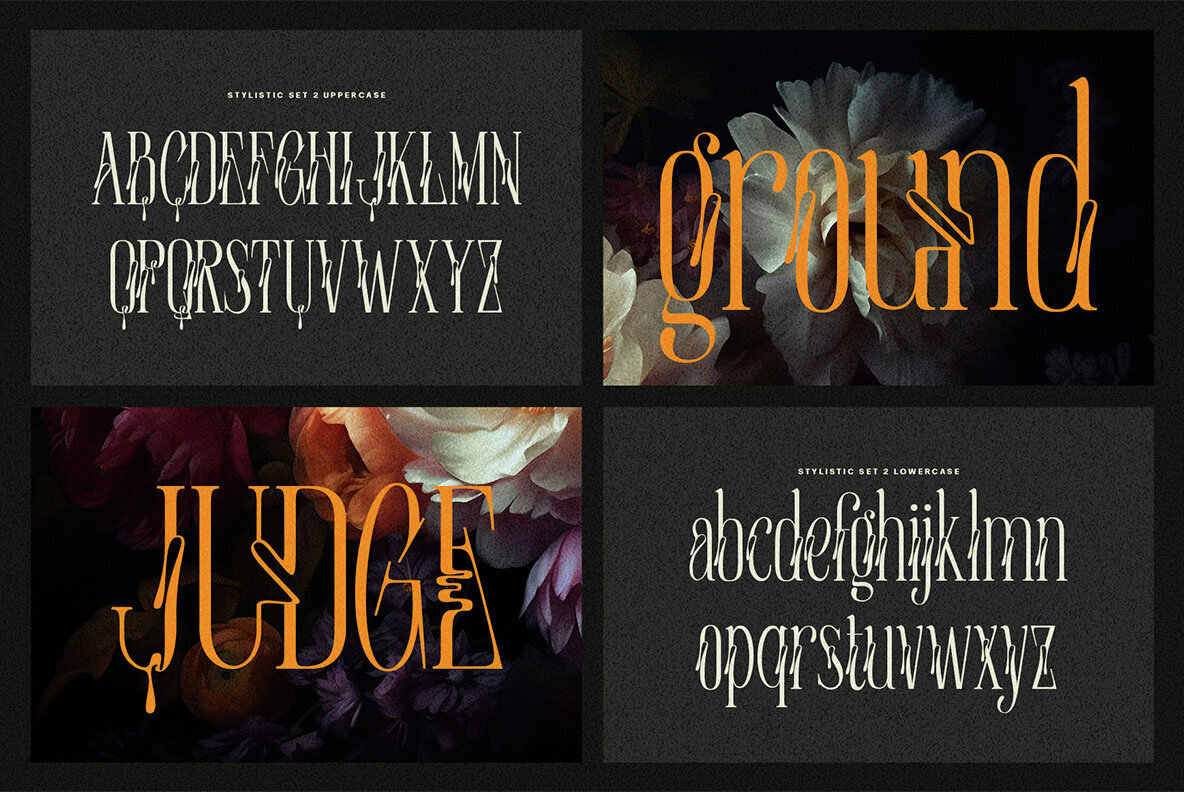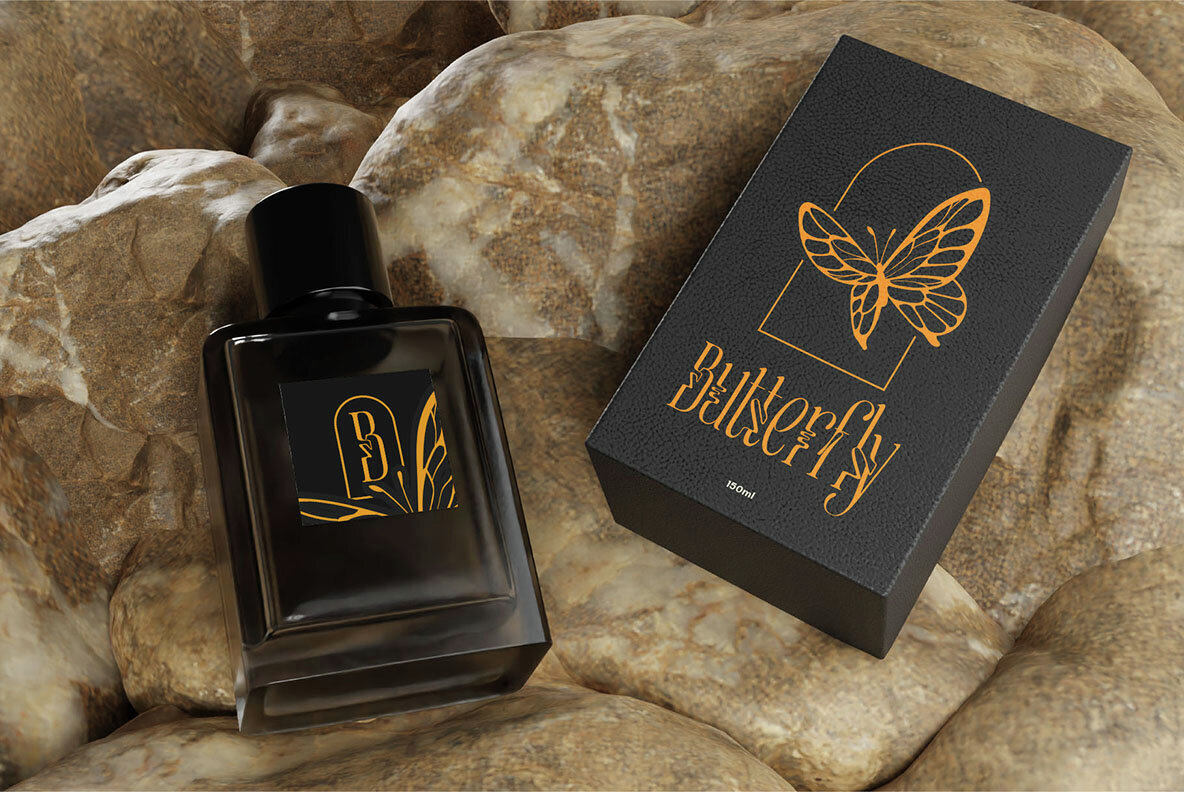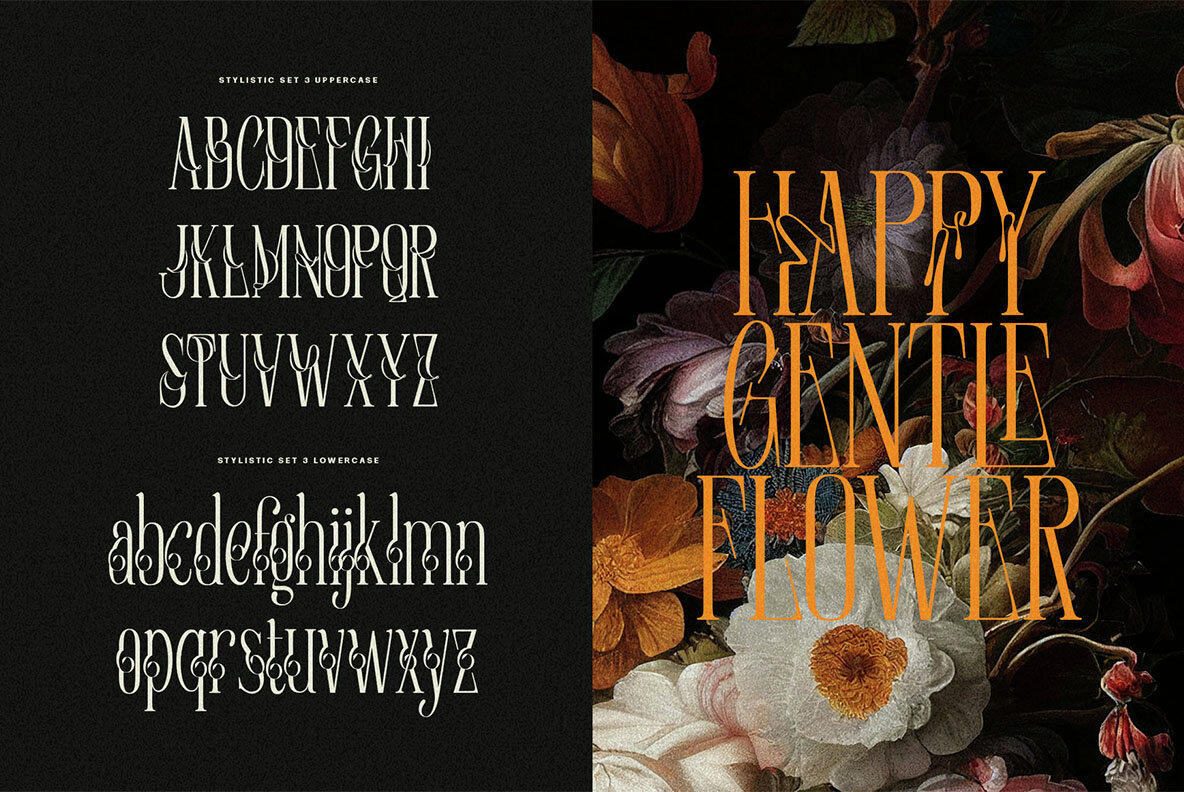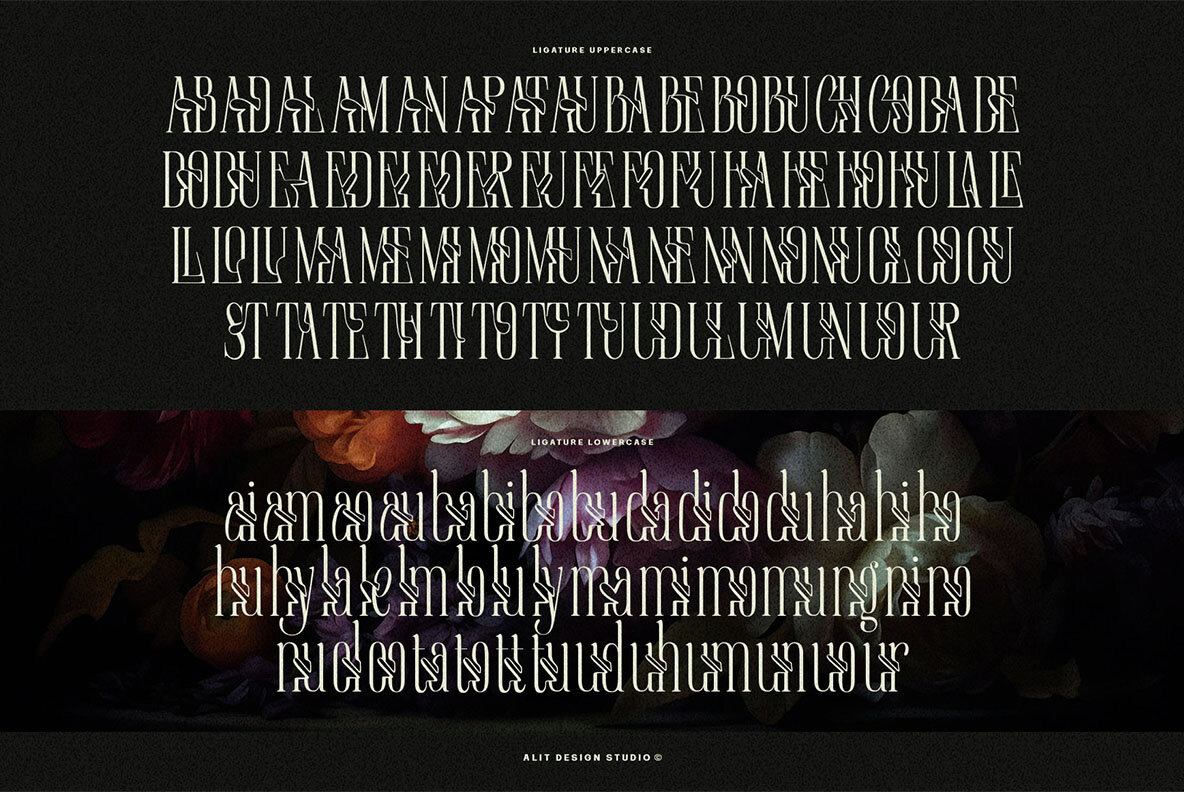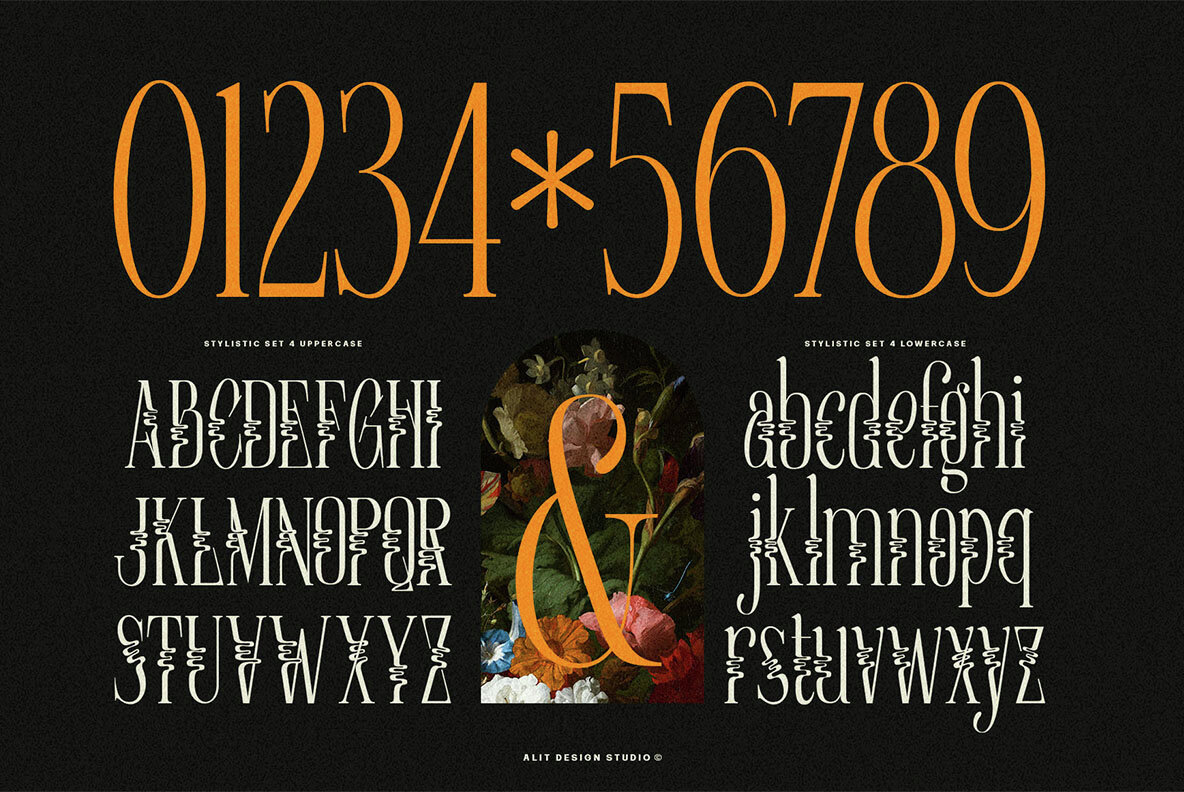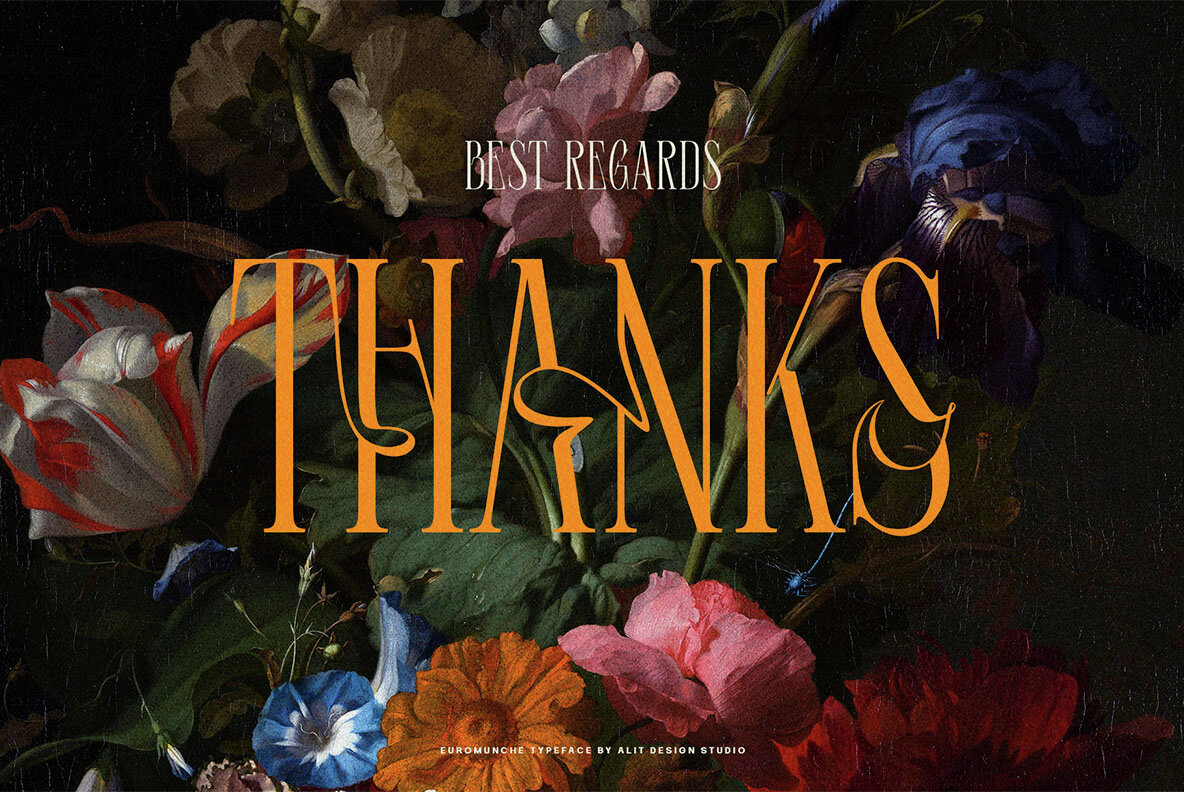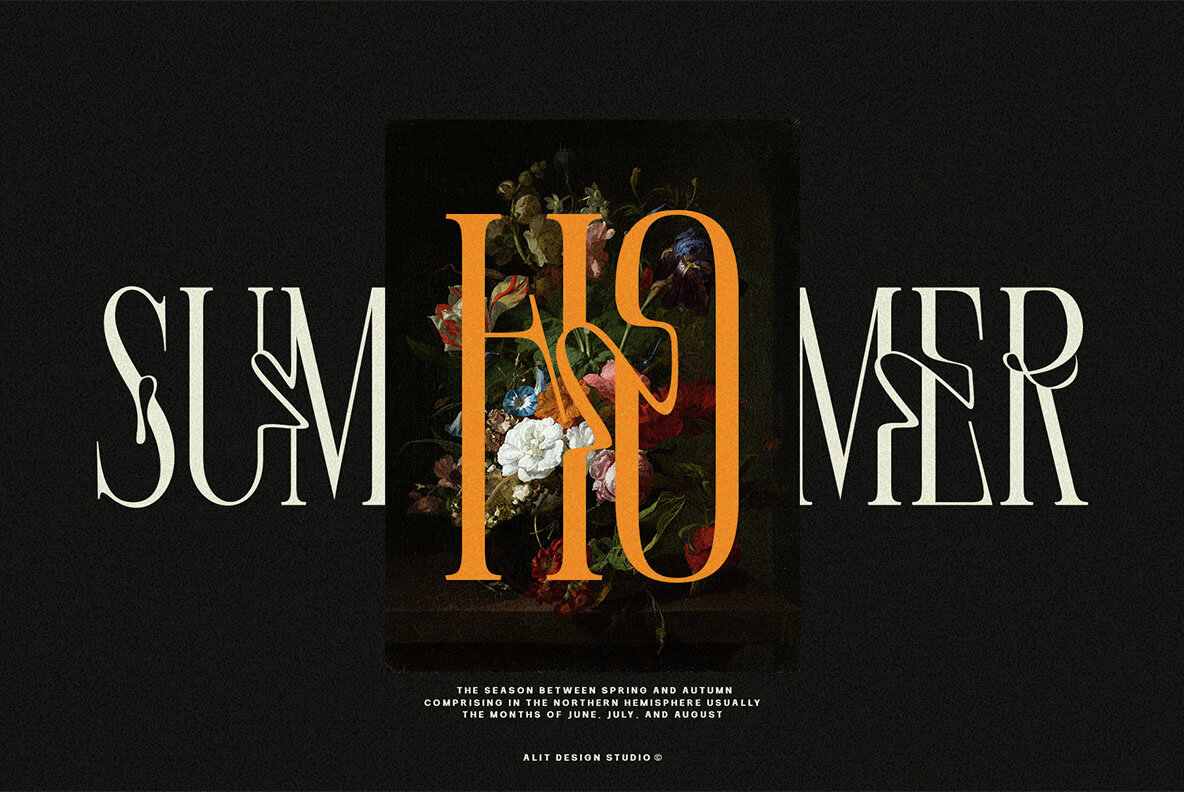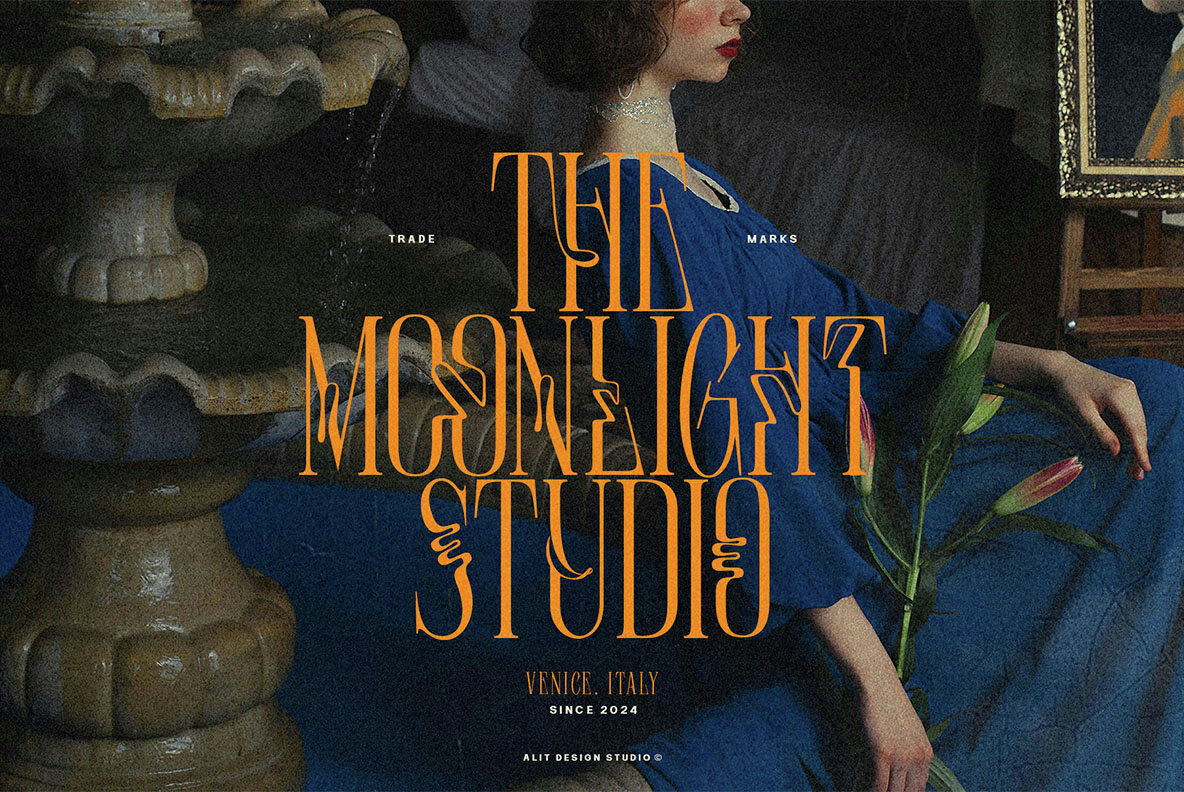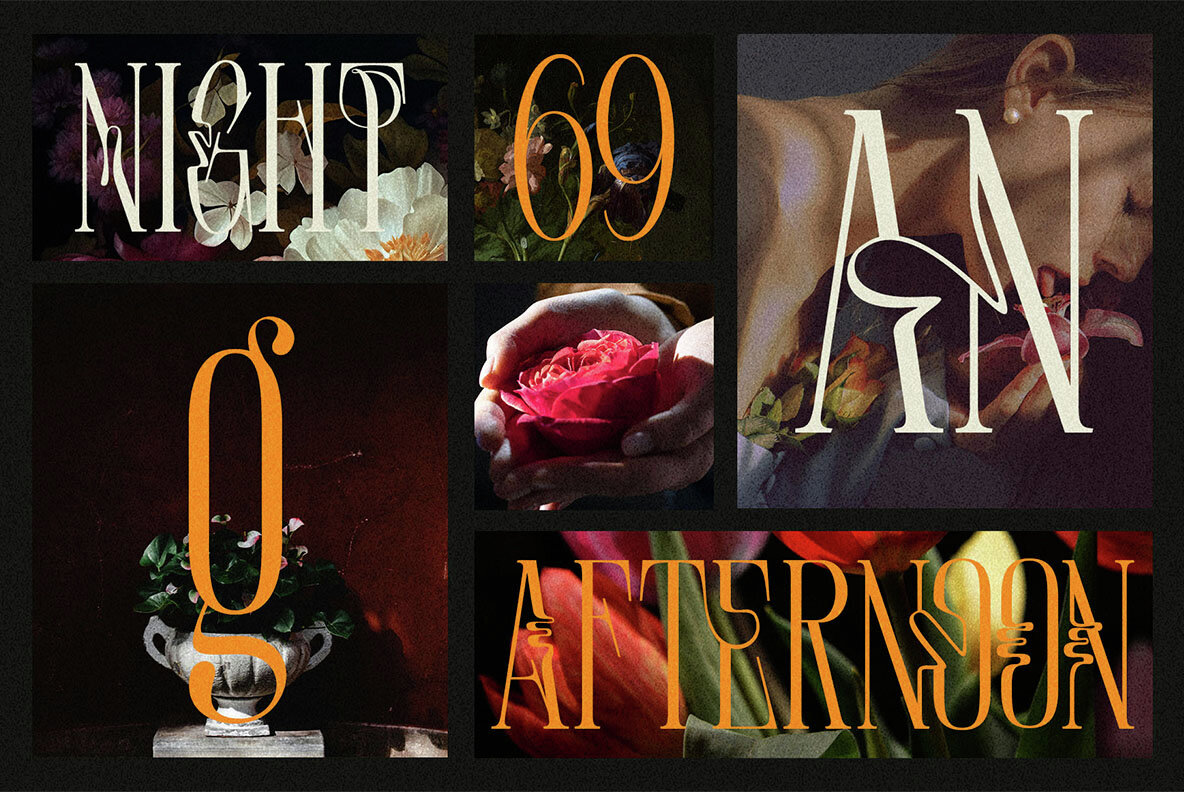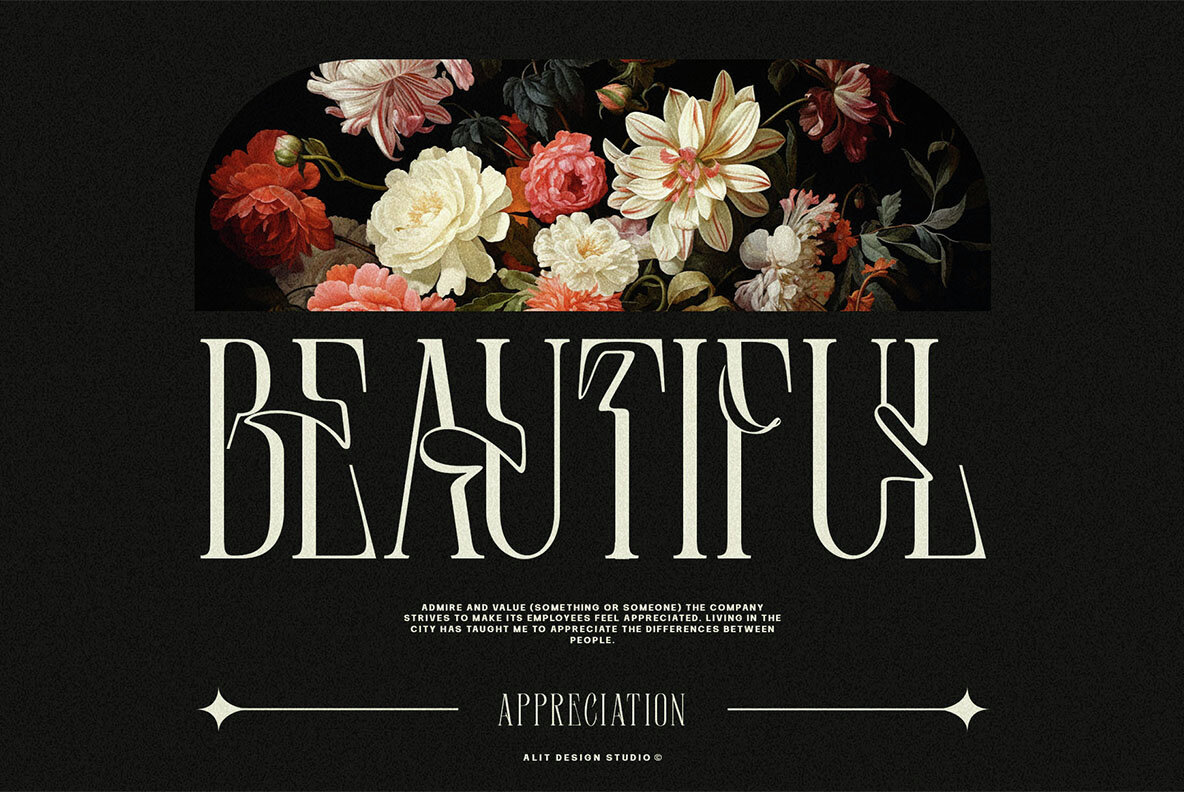
Euromunche Typeface is a tall serif font that embodies both modern aesthetics and a touch of whimsical charm. Its distinct swaying characters add a unique dynamism to the text, making it perfect for contemporary design projects that seek to stand out with a sophisticated yet playful touch. Design Concept Usage Euromunche Typeface is ideal for a variety of applications, including: Key Features Conclusion Euromunche Typeface is a unique blend of tall serif elegance and modern design innovation. Its distinctive swaying characters set it apart, making it a versatile choice for designers seeking to add a sophisticated and contemporary touch to their projects. Whether used in print or digital media, Euromunche Typeface promises to deliver a striking visual impact.